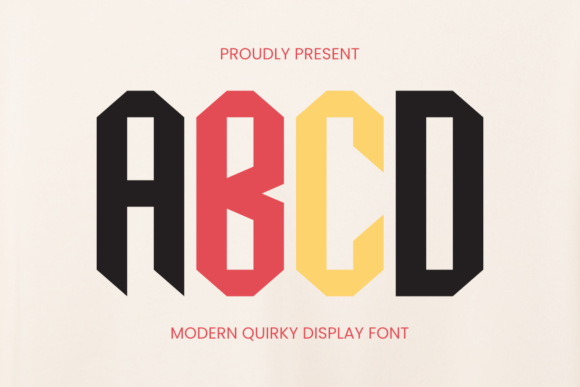
The Ultimate Guide to Abcd Font: Elevate Your Designs with a Modern Quirky Display Font
Have you ever been in the middle of a design project, and suddenly, you’re stuck on finding the perfect font? I recall a recent experience where I was working on a client’s branding materials, and I just couldn’t find a font that captured the essence of their quirky and modern brand. That’s when I stumbled upon the Abcd Font, and it completely transformed my design. In this article, we’ll dive into the world of Abcd Font, exploring its unique features, and how to make the most of it in your creative projects.
Abcd Font: A Personal Review
As a designer, I’m always on the lookout for fonts that can make a statement. The Abcd Font has quickly become one of my go-to fonts, and here’s why:
- ✨ Unique geometric shapes: The Abcd Font boasts distinctive geometric shapes that add a touch of modernity to any design.
- ✅ Strong presence: This font has a bold and quirky personality that demands attention, making it perfect for designs that require impact.
- 💡 Versatility: From t-shirt designs to wall art, the Abcd Font shines on a variety of items, giving you endless creative possibilities.
However, no font is perfect, and here are a few quirks to keep in mind:
- 🤔 Limited use in formal designs: The Abcd Font’s quirky nature might not make it the best fit for formal or traditional designs.
A Practical Guide to Using Abcd Font
- Take advantage of stylistic alternates to add variety to your text and make it more engaging.
The Story Behind Abcd Font
The Abcd Font was designed with the modern creator in mind. Its designer aimed to create a font that would stand out in a sea of traditional typefaces. Inspired by geometric shapes and the need for a bold, yet quirky display font, Abcd was born. Today, it’s a favorite among crafters, sublimation artists, and creators on platforms like Etsy and Cricut.
| What makes Abcd Font unique? | The Abcd Font’s unique geometric shapes and strong presence make it stand out, perfect for designs that require a bold statement. |
| Is Abcd Font suitable for body text? | While Abcd Font can be used for body text, its bold and quirky nature makes it more suitable for headings and titles. |
In conclusion, the Abcd Font is a versatile and impactful font that can elevate your designs to the next level. With its unique geometric shapes and strong presence, it’s perfect for a variety of creative projects. Whether you’re a designer, crafter, or hobbyist, the Abcd Font is sure to become a valuable addition to your font library.